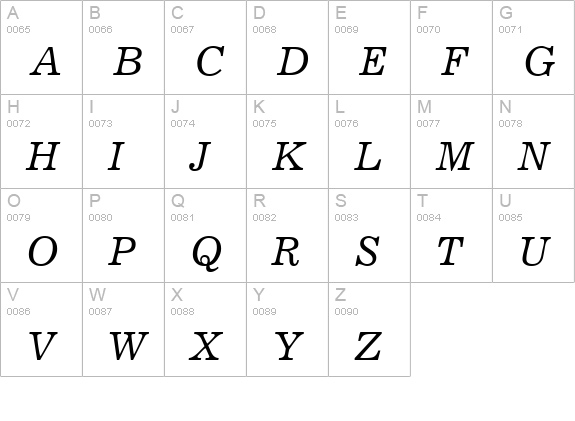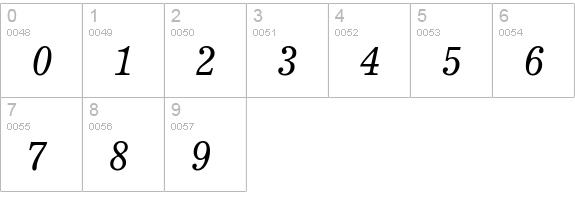
Exemplary-Italic Font Details
Exemplary-Italic is a distinctive, italic variant in the Exemplary typeface family \xE2\x80\x94 well suited to design and typography projects.
The Exemplary-Italic font is a modern and sophisticated typeface that exudes elegance and refinement. Its slanted and stylish italic design adds a touch of sophistication to any project, making it perfect for use in branding, editorial design, and more. With its clean lines and sleek appearance, Exemplary-Italic is ideal for creating a polished and professional look. What sets the Exemplary-Italic font apart is not only its aesthetic appeal but also its versatility. Whether you're designing a logo, creating a website, or working on a print publication, this font will elevate your project and give it a timeless quality. And the best part? Exemplary-Italic is available for free download at FontsMarket.com, making it accessible to everyone who wants to add a touch of class to their designs. So why wait? Download Exemplary-Italic today and take your projects to the next level.